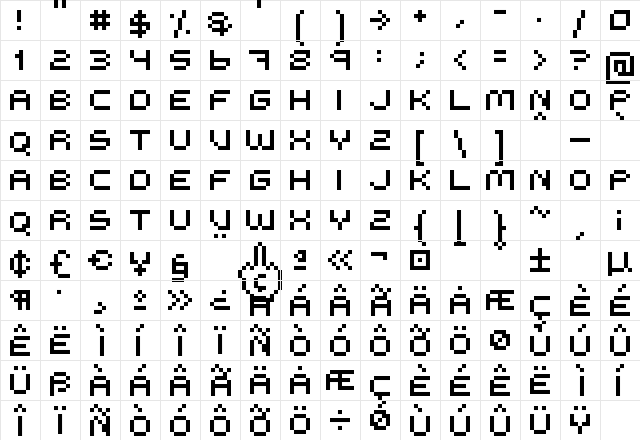
MeTooPixzi Regular
MeTooPixzi takes a measured approach to typography — its balanced proportions and neutral character make it a reliable workhorse for both digital and print work.